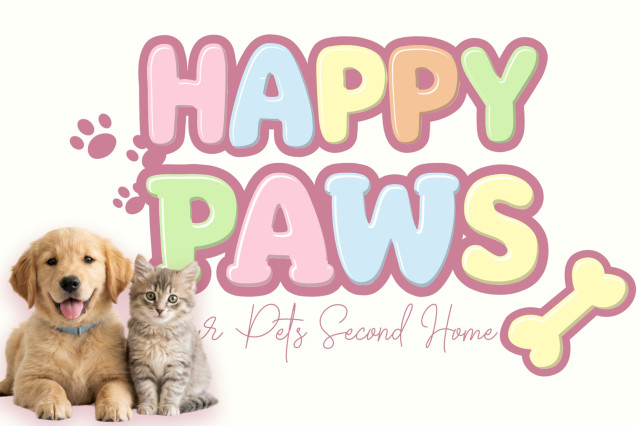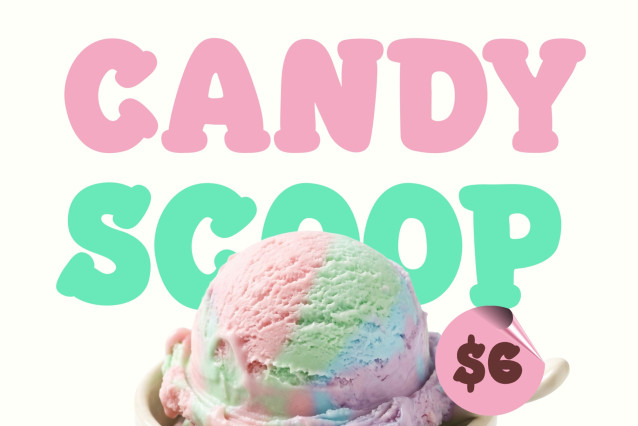
Pogo Puff Font is a vibrant and energetic display font designed by Cikareotype Studio that brings a sense of fun and whimsy to any creative project. Characterized by its soft, rounded edges and “inflated” appearance, this typeface perfectly captures the essence of classic bubble graffiti and retro-pop aesthetics.
The font family offers versatile options, including a bold Solid version for maximum impact and a stylish Outline version that adds a light, airy feel to your layouts. Whether you’re designing eye-catching posters, playful children’s book covers, unique social media graphics, or cheerful branding, Pogo Puff stands out with its friendly and approachable personality. Its bubbly charm makes it an ideal choice for creators looking to inject a dose of joy and creativity into their visual storytelling.